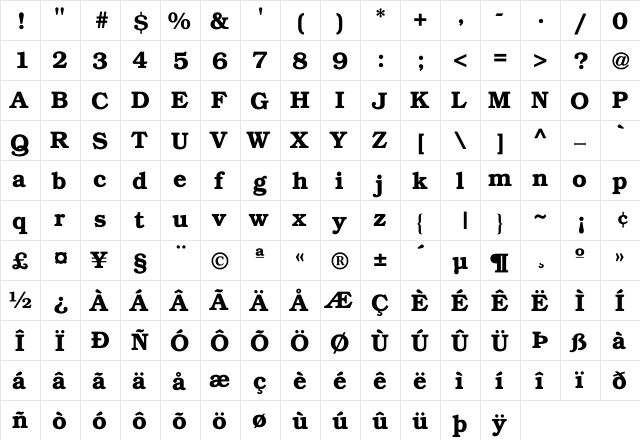
Bookman-Demi Regular
Design Context for Bookman-Demi Typeface
Bookman-Demi takes a measured approach to typography — its balanced proportions and neutral character make it a reliable workhorse for both digital and print work.
Pro Tip: Use Bookman-Demi in both headline and body roles to test its range before committing to a single application.